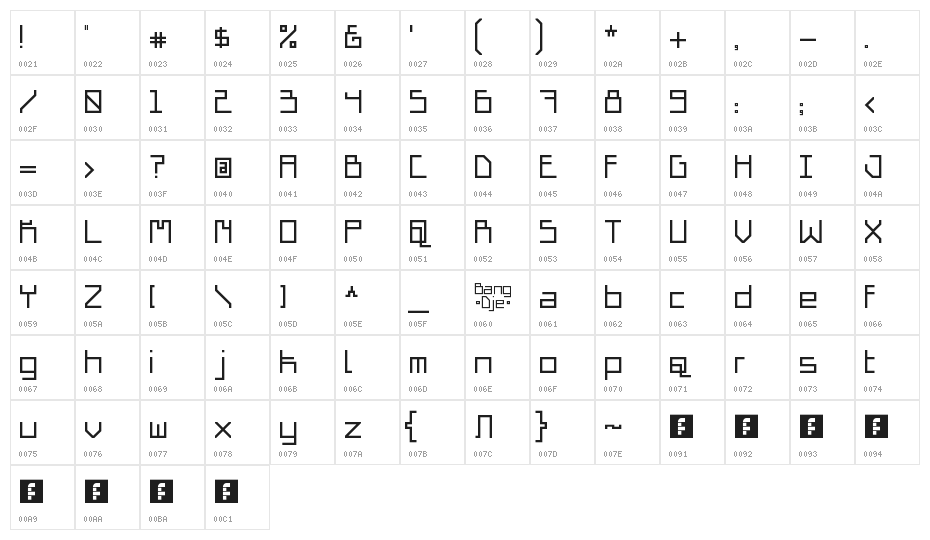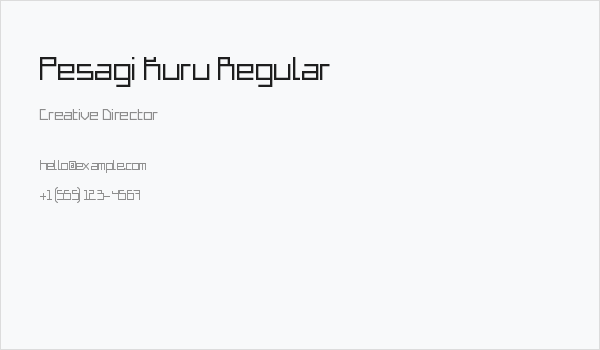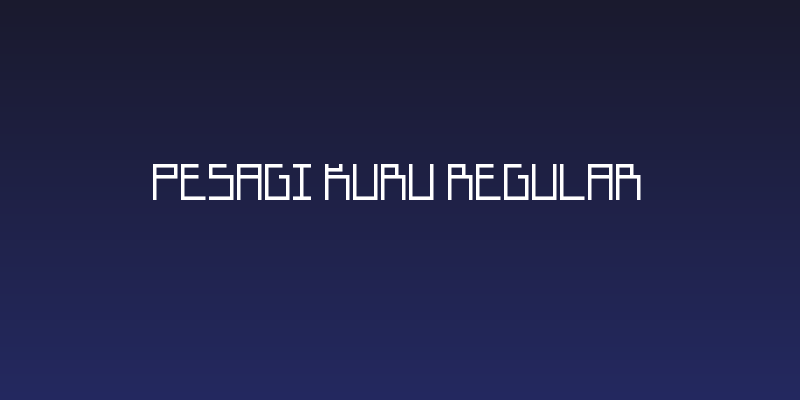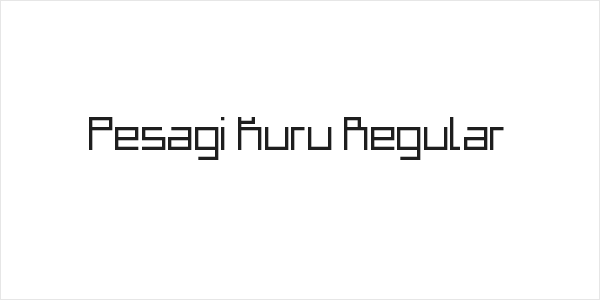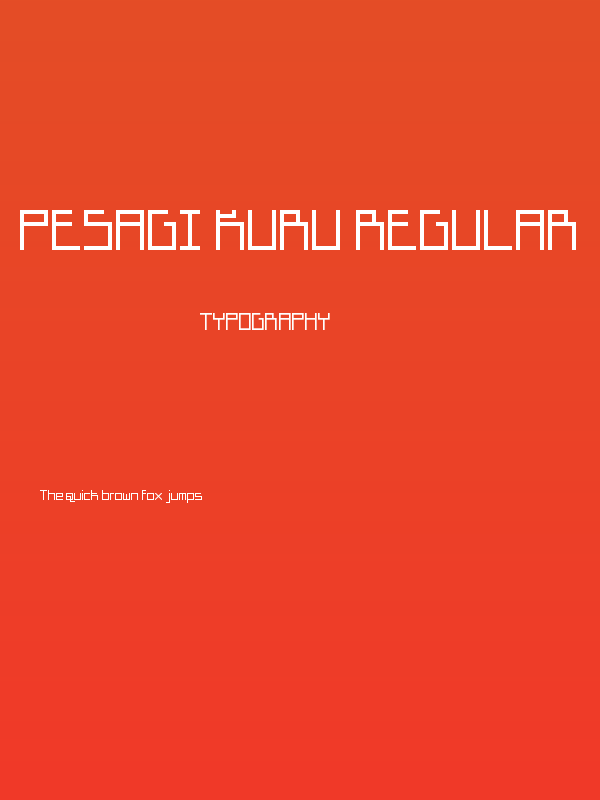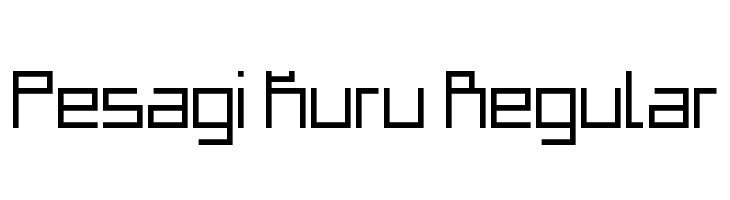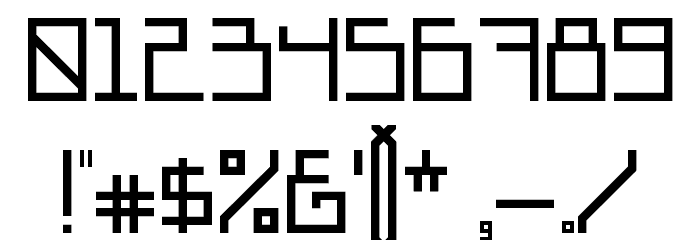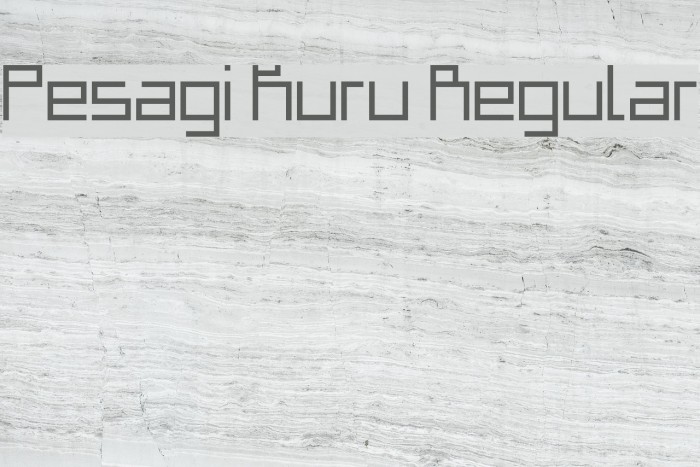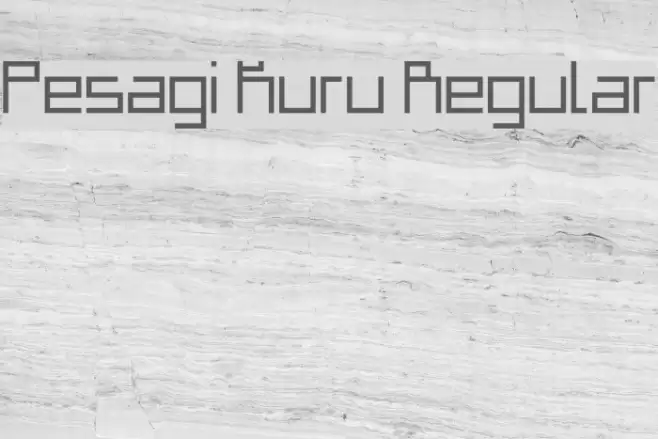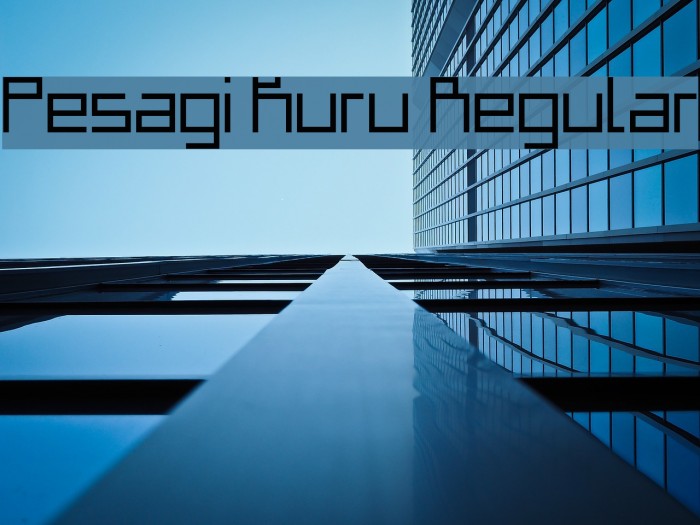
Pesagi Kuru Regular Font
Pesagi Kuru Regular Description
This font features a geometric and modern design with a distinct block-like appearance. Each character is constructed with straight lines and sharp angles, giving it a futuristic and digital feel. The uppercase and lowercase letters maintain a consistent height, contributing to a uniform look. The numerals and special characters follow the same design principles, ensuring cohesion across all glyphs. This font's unique style makes it stand out, ideal for projects that require a contemporary and tech-inspired aesthetic.
| Use Case | Logos, Headlines, Digital interfaces |
| Proposed Projects | Ideal for tech branding, digital interfaces, video game design, and futuristic posters. |